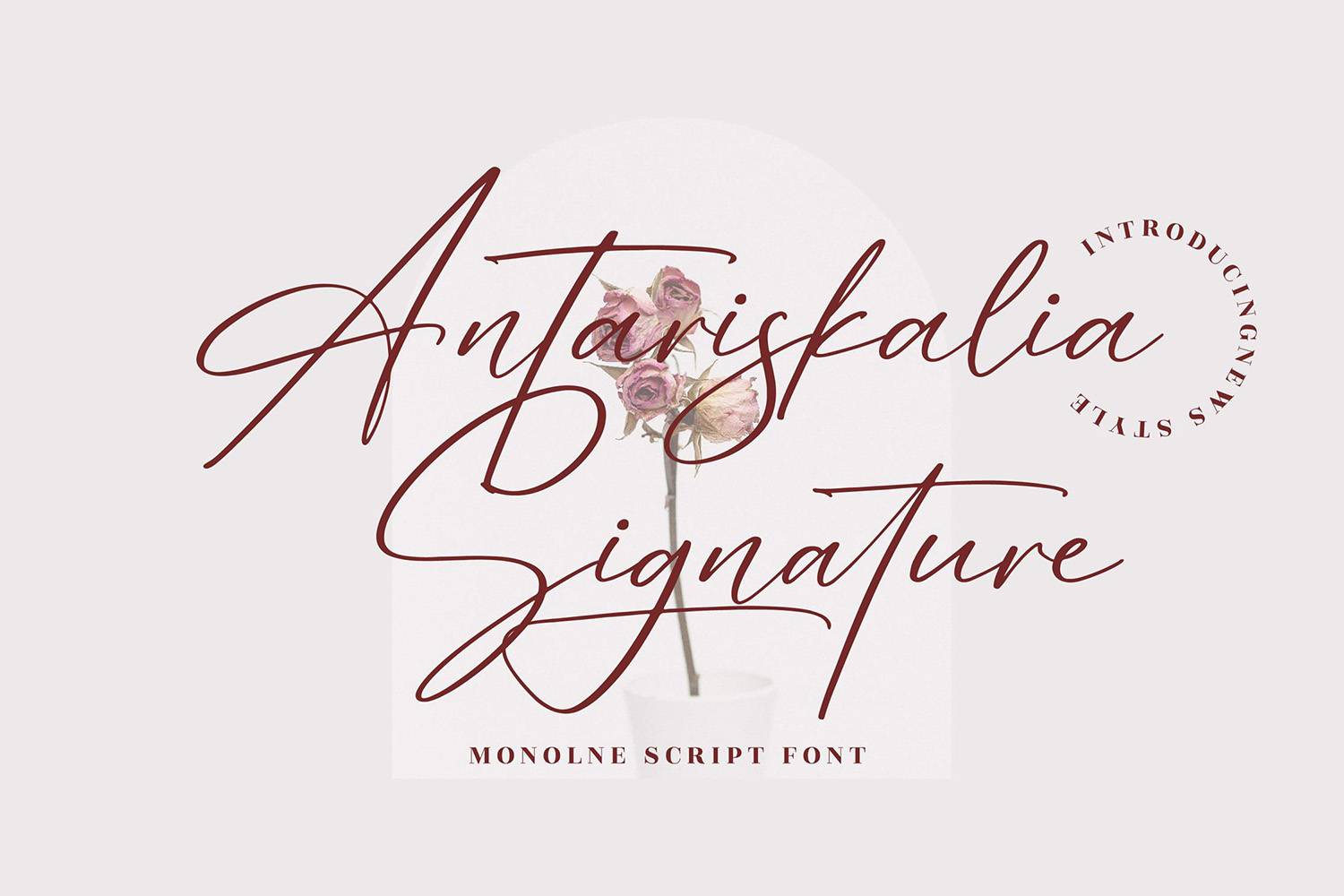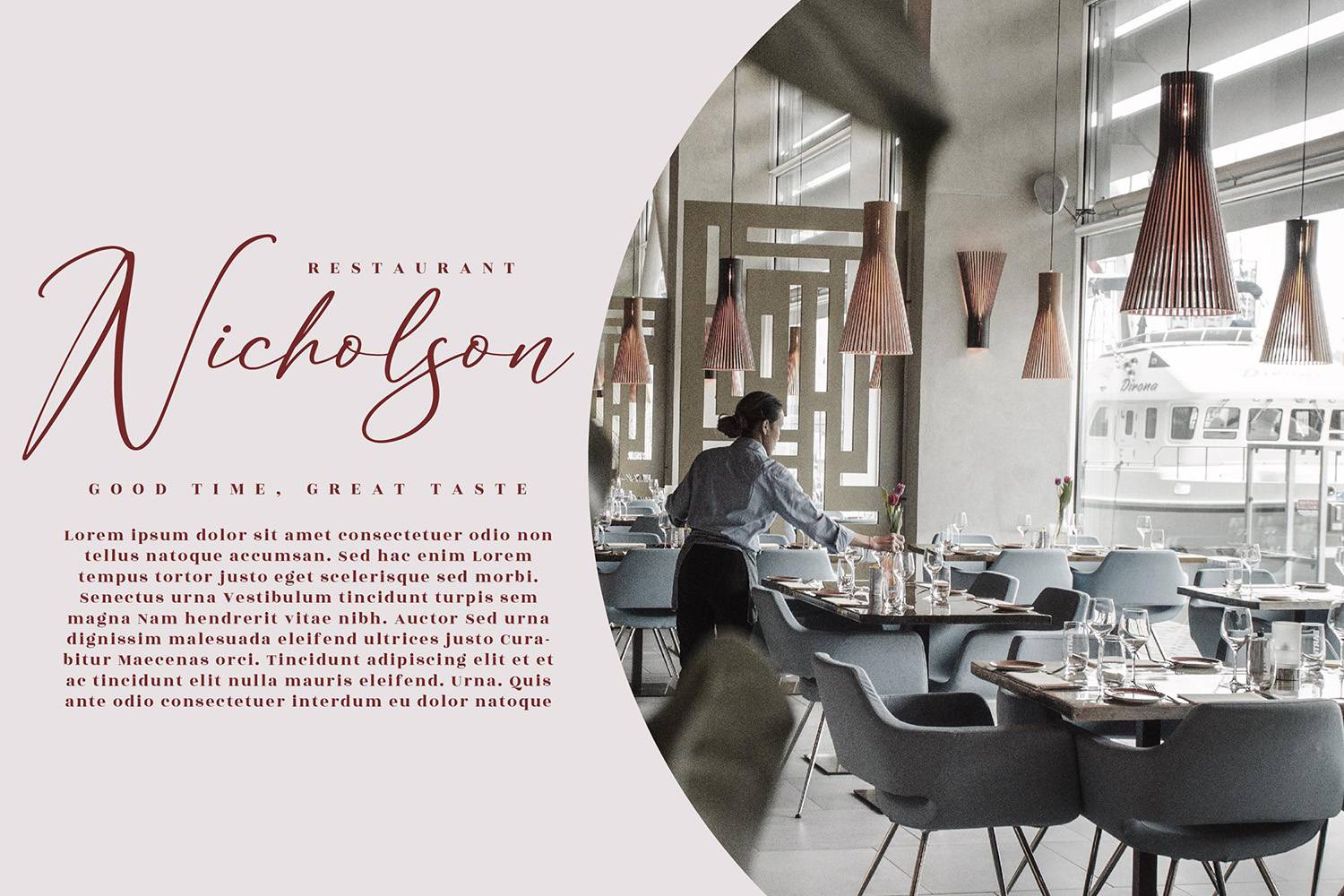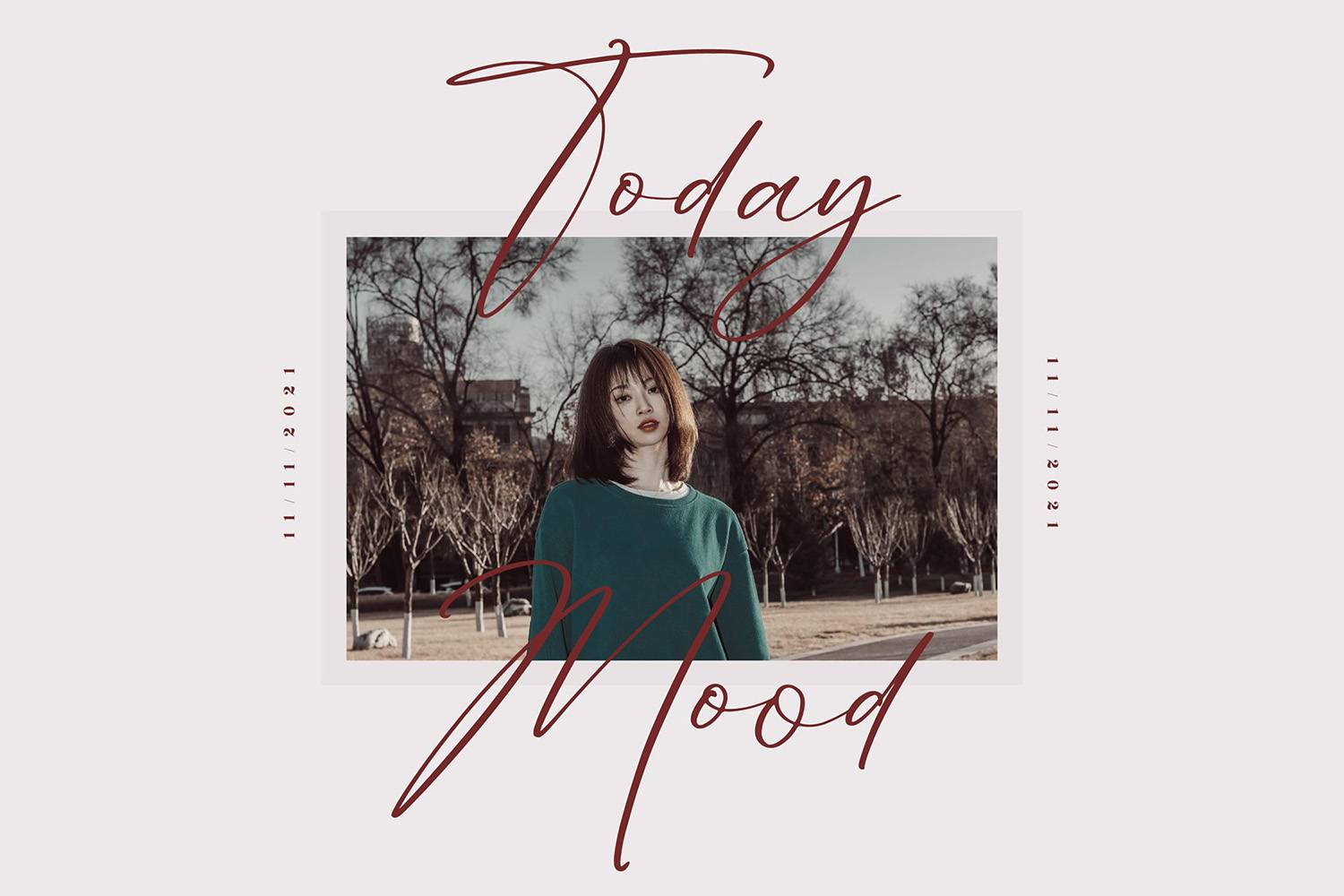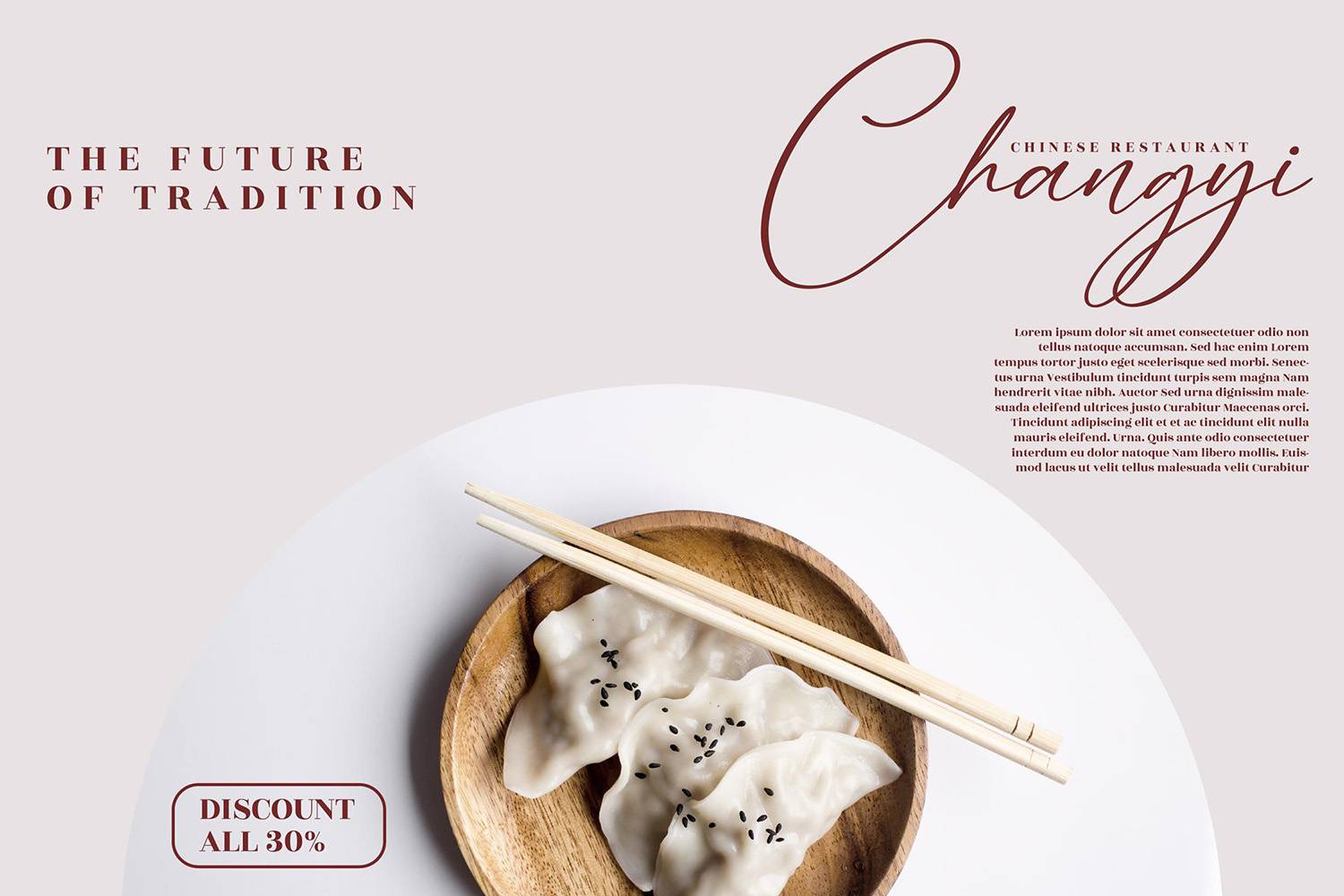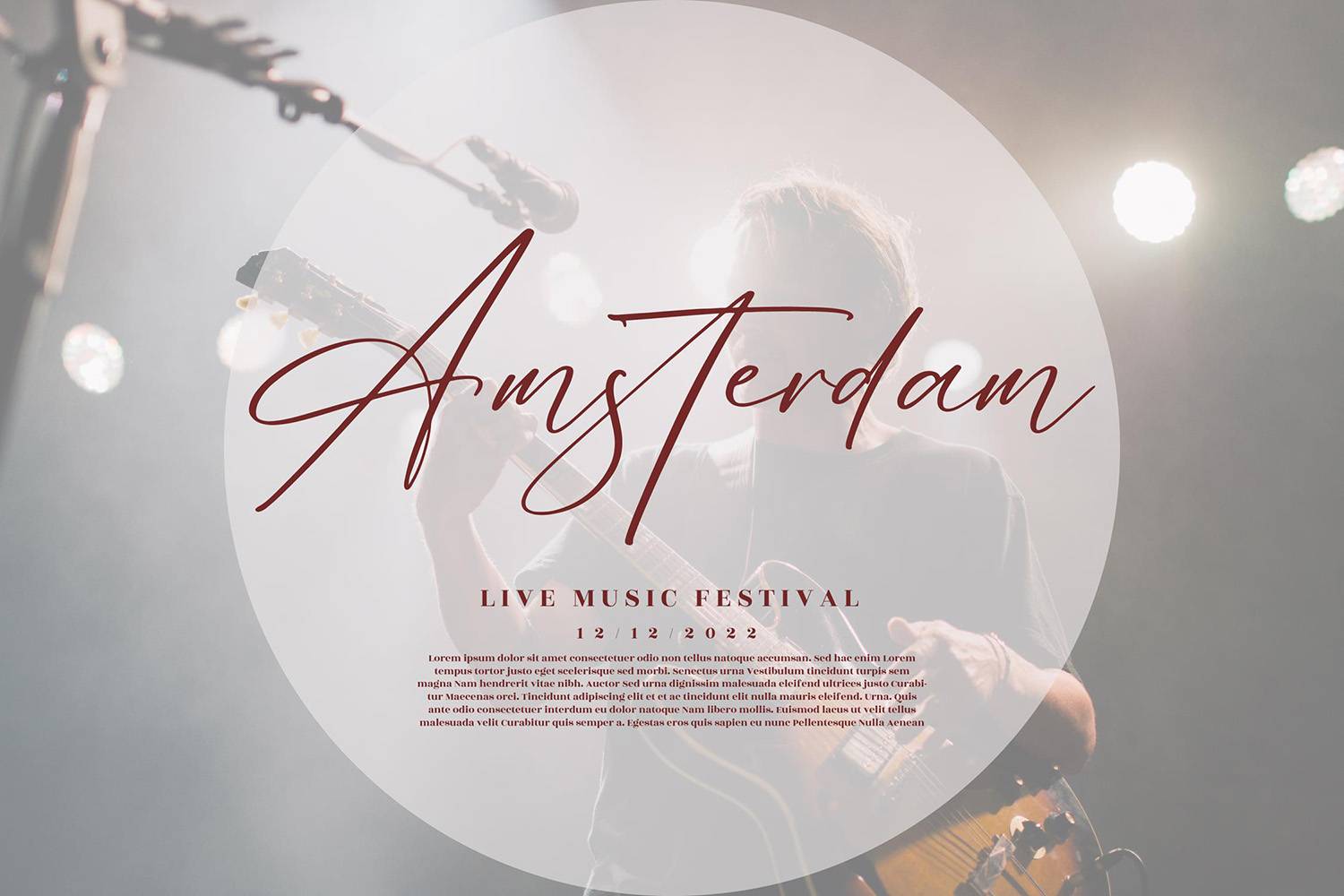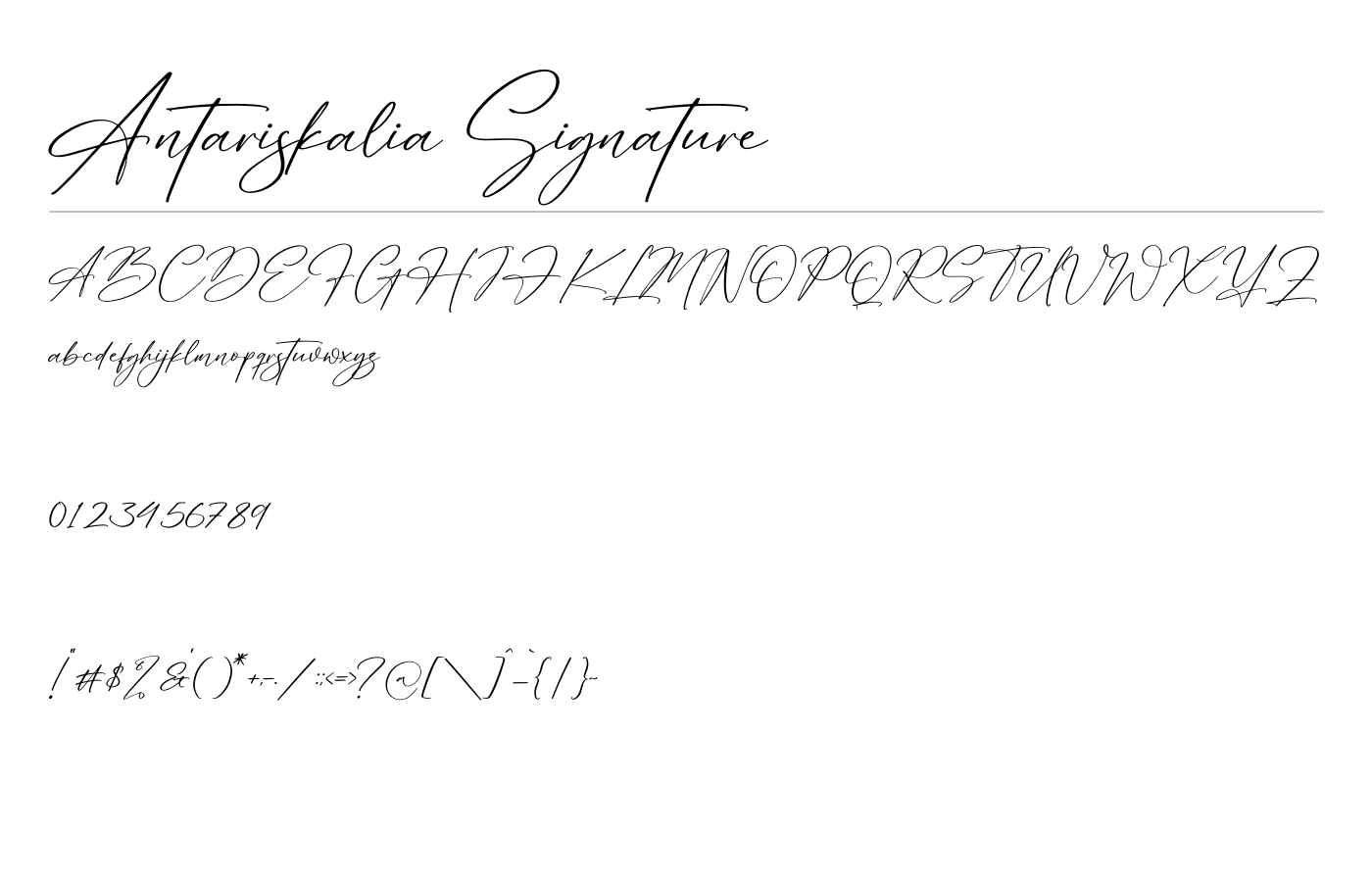
Antariskalia Signature Font is an elegant, thin script typeface that mimics natural, flowing handwriting with delicate strokes and refined curves. Its light weight and graceful letterforms create a sophisticated yet approachable style, making it perfect for luxury branding, wedding invitations, and personal signatures. This font shines in settings where a touch of class and individuality is desired, bringing a modern and stylish flair to logos, editorial designs, and upscale packaging.
Antariskalia Signature Font
About Antariskalia Signature Font